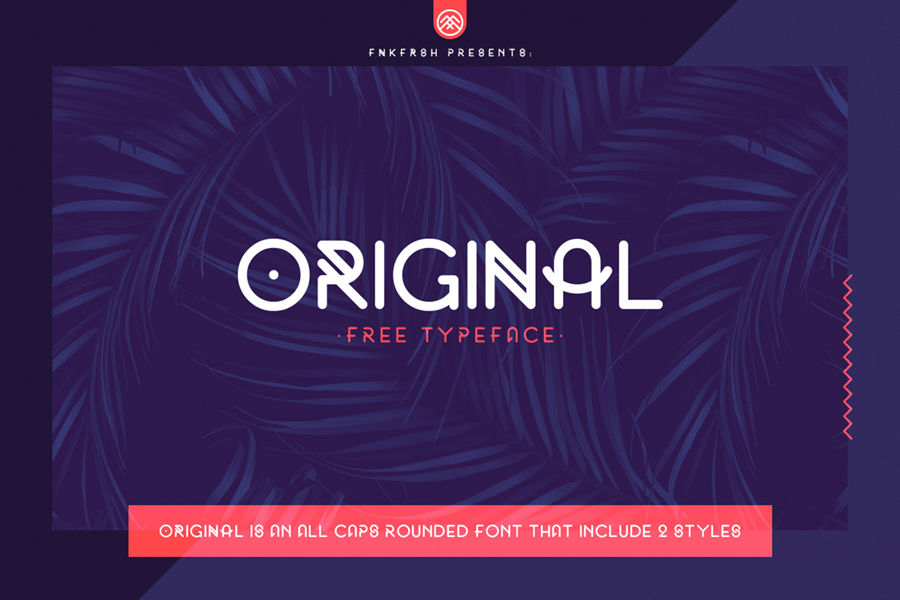
Famous Original Fonts Ideas. Click here for details 13. It is unique and unconventional which is make it great for poster and heading uses.
Click here for details 13. A b c d e f g h i j k l m n o p q r s t u v w x y z # 3d alien animal army stencil asian arabic bitmap pixel. This rounded monoline typeface is what you need.
Original surfer is an offbeat sans serif font with loads of personality. Sans original font | webfont & desktop | myfonts browse fonts by category home > fonts > thaddeus typographic center > sans original by thaddeus typographic. It is unique and unconventional which is make it great for poster and heading uses.